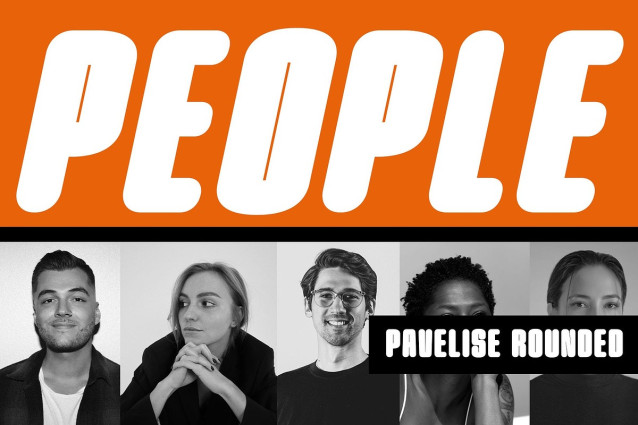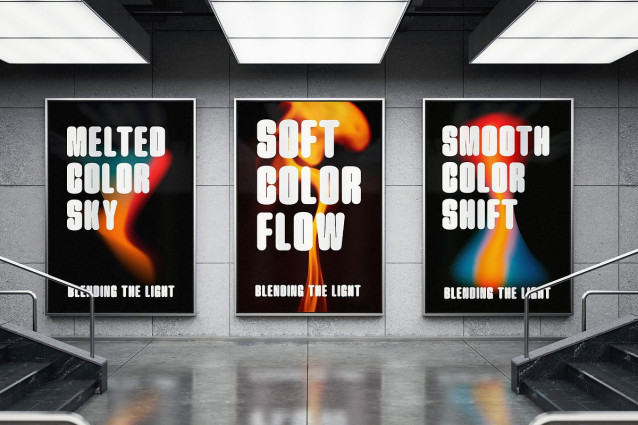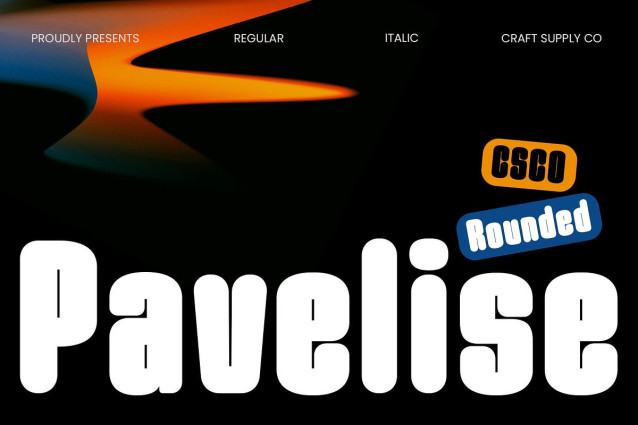
Pavelise Rounded Font
Pavelise Rounded Font is a modern sans serif font that combines boldness and strength with a contemporary, minimalist aesthetic. Its bold form creates a strong and assertive impression, ensuring that it stands out in any design. Perfect for designs that need to make a statement, this font captures attention without overpowering the message.
Condensed Form for Space-Efficiency The condensed design of Pavelise Rounded allows for efficient use of space without sacrificing readability. This feature makes it ideal for designs where space is limited, such as headlines, banners, and web layouts, ensuring that your message remains clear and impactful while making the most of available space.
Rounded Edges for Friendliness and Approachability The rounded edges of Pavelise Rounded soften its bold form, adding a friendly and approachable touch to its design. This balance between strength and warmth creates a modern, welcoming vibe, making the font suitable for both professional and creative applications.
Versatile for Branding, Headlines, and Web Design The combination of bold, condensed, and rounded features makes Pavelise Rounded an ideal choice for a wide range of design projects. Whether you’re working on branding, headlines, or web design, this font strikes the perfect balance between visual strength and warmth, making it versatile and effective for a variety of modern design needs.